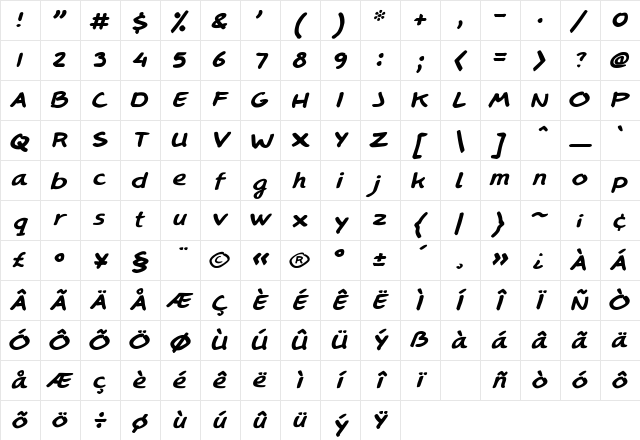
Complete Edding3000 Italic glyph index. Displaying only characters natively supported by Edding3000 Italic font.
Edding3000 is a composed and adaptable typeface that performs quietly and consistently across a wide range of design contexts. The slanted form adds forward momentum and visual energy.
Pro Tip: Use Edding3000 for emphasis, pull quotes, and subheadings where its slanted energy can add rhythm to the layout.